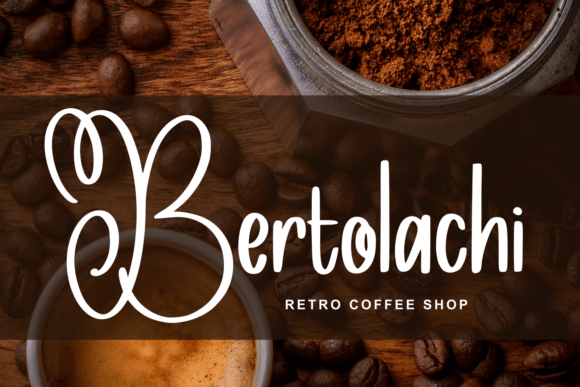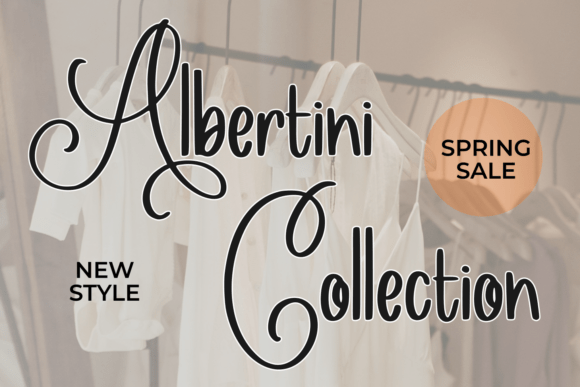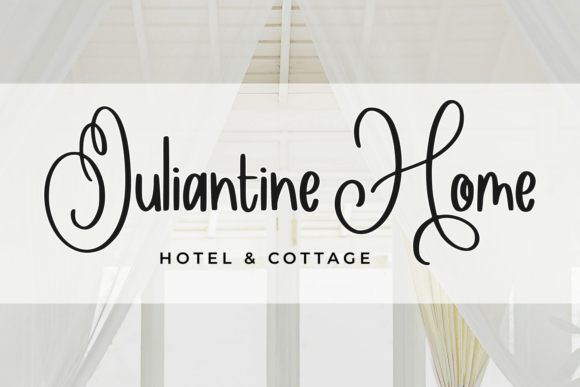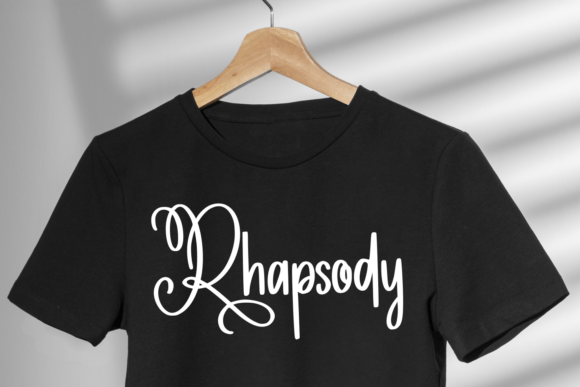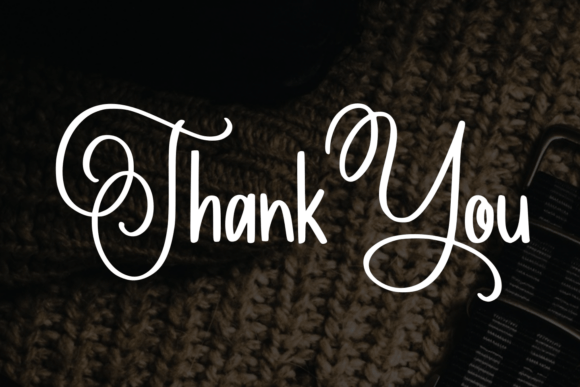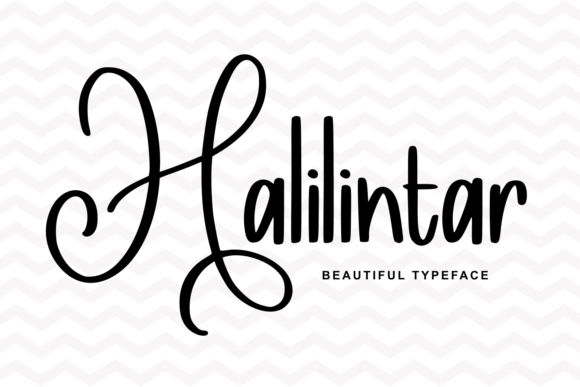
Discover the Elegance of Halilintar Font: A Perfect Blend of Calligraphy and Modernity
In the world of typography, finding the perfect font that combines elegance, modernity, and readability can be a daunting task. However, if you’re looking for a font that embodies all these qualities, look no further than the Halilintar Font. This beautiful handwritten calligraphy sans serif font has been designed to blend the grace of flowing strokes with the clarity of modern letterforms, making it an ideal choice for designers and crafters seeking to elevate their projects.
The Inspiration Behind Halilintar Font
Halilintar Font is inspired by the feeling of movement and elegance. Its characters are smooth, confident, and subtly expressive, giving your text a refined yet contemporary appearance. The font’s design is rooted in the concept of combining traditional calligraphy with modern sans serif elements, creating a unique and harmonious visual experience.
Key Features of Halilintar Font
So, what makes Halilintar Font stand out from the rest? Here are some of its key features:
- Smooth and Confident Characters: Each character in the Halilintar Font is carefully crafted to exude confidence and smoothness, making it perfect for a wide range of applications.
- Subtly Expressive: The font’s subtle expressiveness adds a touch of elegance and sophistication to your text, making it ideal for projects where style and readability are paramount.
- Versatile: Halilintar Font is versatile enough to be used in both formal and creative projects, making it a valuable addition to any designer’s font library.
- Readability: The font’s modern sans serif elements ensure excellent readability, even at smaller font sizes.
Use Cases for Halilintar Font
Halilintar Font is an excellent choice for a wide range of design projects, including:
- Branding: Create a lasting impression with your brand’s identity using Halilintar Font for your logos, business cards, and letterheads.
- Logos: Design stunning logos that exude elegance and sophistication with Halilintar Font.
- Headlines: Add a touch of style and flair to your headlines with Halilintar Font, perfect for magazines, newspapers, and online publications.
- Fashion Designs: Elevate your fashion designs with Halilintar Font, ideal for fashion magazines, runway show posters, and clothing brand logos.
- Invitations: Create beautiful and elegant invitations for special occasions, such as weddings, parties, and events.
- Posters: Design eye-catching posters that grab attention with Halilintar Font, perfect for advertising, promotions, and events.
- Editorial Layouts: Use Halilintar Font to add a touch of sophistication and elegance to your editorial layouts, such as magazines, newspapers, and blogs.
Why Choose Halilintar Font?
If you’re searching for a font that feels elegant, modern, and effortlessly stylish, Halilintar Font is the perfect choice. Its unique harmony of calligraphy beauty and sans serif simplicity makes it an excellent addition to any design project. With Halilintar Font, you can:
- Elevate Your Designs: Add a touch of elegance and sophistication to your designs with Halilintar Font.
- Stand Out from the Crowd: Use Halilintar Font to create unique and eye-catching designs that grab attention.
- Save Time: With its excellent readability and versatility, Halilintar Font saves you time and effort in finding the perfect font for your project.
In conclusion, Halilintar Font is an exceptional choice for designers and crafters seeking a font that combines elegance, modernity, and readability. Its unique features, versatility, and use cases make it an excellent addition to any design project. So, why wait? Discover the elegance of Halilintar Font and take your designs to the next level.